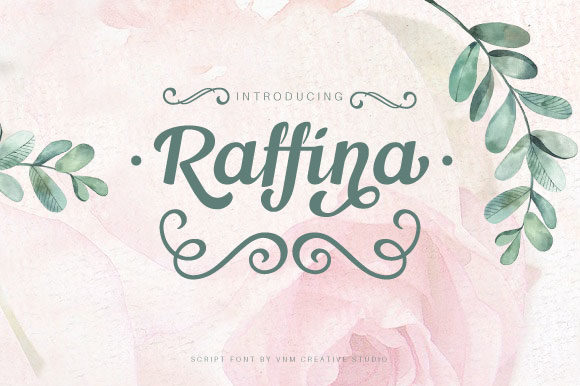
Prepare yourself for Raffina Font - a magnificent script font that will breathe life into your creative projects! Raffina's distinctiveness shines through every line, adding a stroke of charm and a dash of elegance to your designs. Graceful curves dance across this font, reflecting an organic and fluid motion that captures hearts. Each letter carries a captivating story, inviting viewers to delve into a world of imagination.
Raffina's beauty is more than skin-deep. Its versatility allows for endless applications. Let Raffina elevate your wedding invitations, adding a personal touch to your special day. Your social media posts will exude charisma, as Raffina dances across your screens, captivating your audience. Logos designed with Raffina command attention, leaving a lasting impression on customers. Whether it's T-shirt designs or branding projects, Raffina's versatility knows no bounds.
Imagine the allure of a handwritten note, the warmth of a heartfelt message. Raffina brings this intimacy to your digital world. This font humanizes your words, connecting you with your audience on a deeper level. With Raffina, your voice resonates with emotion, making every word count.
The details in Raffina are a testament to its artistry. Each stroke is meticulously crafted, carrying the passion of its creator. The result is a font that speaks to the heart, embodying a timeless charm. Elegance and sophistication radiate through its characters, leaving a trail of beauty wherever it's used.
Raffina isn't just a font; it's an experience. It's an invitation to let your creativity run wild. Whether you're a seasoned designer or just starting out, Raffina will ignite your imagination and inspire your artistic spirit. So, seize this opportunity to possess a font that is much more than just a collection of letters - it's a gateway to a world of design possibilities. Embrace Raffina Font and let your creative genius shine!